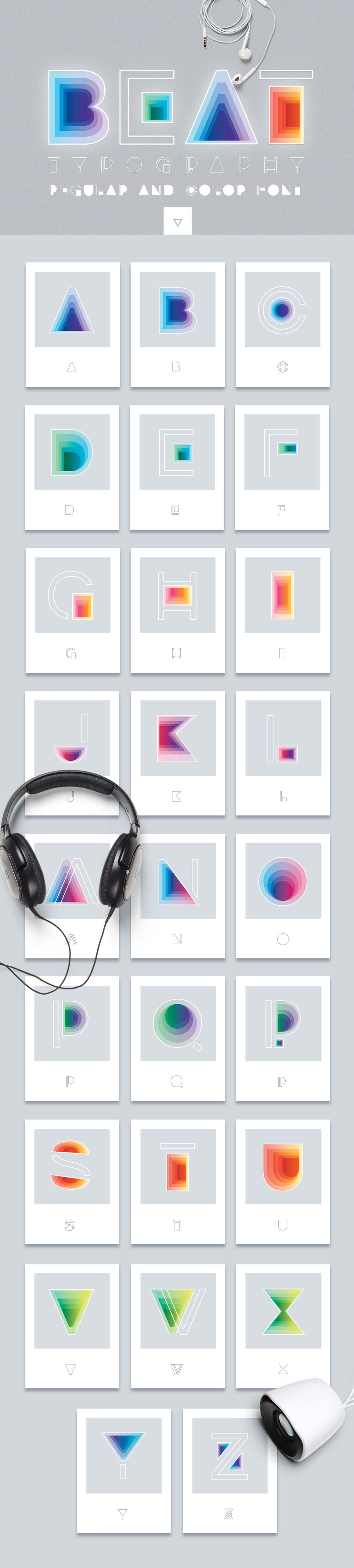
BEAT typography- SVG Color Font
BEAT TYPOGRAPHY VECTORS, REGULAR FONT AND COLOR SVG FONT!
Beat typography is a minimal, futuristic, clean symbol font that is inspired with music beats vibrations, it can be used for various purposes, such as branding, cd cover designs, poster designs, mobile applications and much more.
COLOR FONT